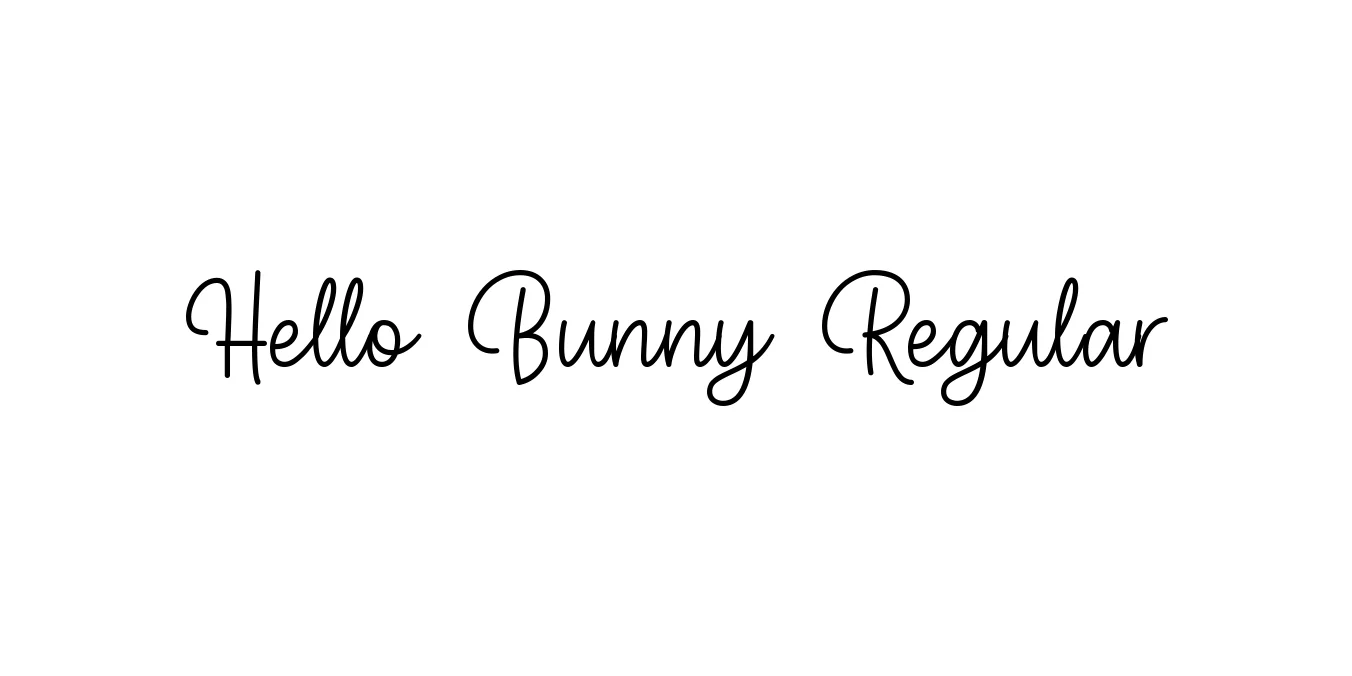
Hello Bunny Regular
Designed by Faisal Tanjung (Sizhuge Studio)
Hello Bunny Regular is a charming and whimsical script font designed to bring a touch of playfulness to any creative project. Characterized by its bouncy baseline and soft, rounded strokes, this typeface captures a joyful, hand-drawn aesthetic that feels both personal and inviting. It is particularly popular for designs targeting younger audiences or projects that require a friendly, informal atmosphere.
The font's versatility lies in its balanced weight and clean execution, making it highly readable even in smaller sizes. Hello Bunny Regular is widely used for digital graphics, print invitations, and craft projects where a sense of warmth and creativity is essential. Its fluid connections and organic flow give it a natural look that mimics authentic handwriting.
Hello Bunny Regular Best Uses
Perfect for birthday wishes and holiday greetings.
Great for creating engaging and cute Instagram stories or posts.
Ideal for toy packaging, clothing labels, and book covers.
Used for wall art and personalized name prints in kids' rooms.
Suitable for small boutiques, DIY businesses, and craft shops.